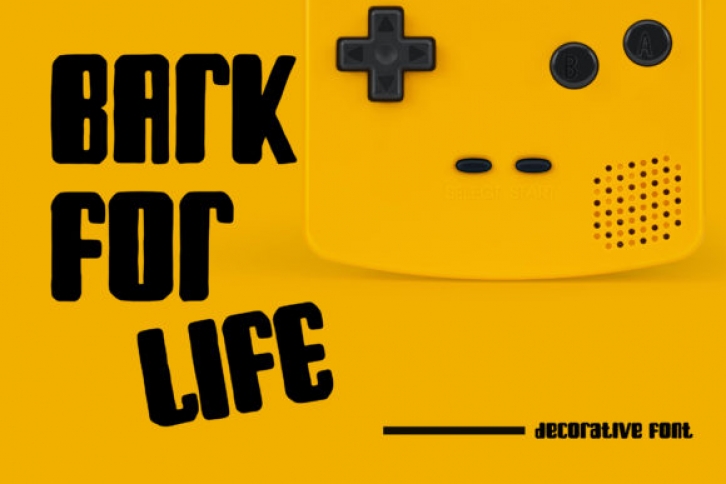
Bark For Life is an impactful display font with bolded characters and wavy lines. It’s a perfect combination of strong and playful elements. This font is PUA encoded which means you can access the available glyphs and swashes with ease!